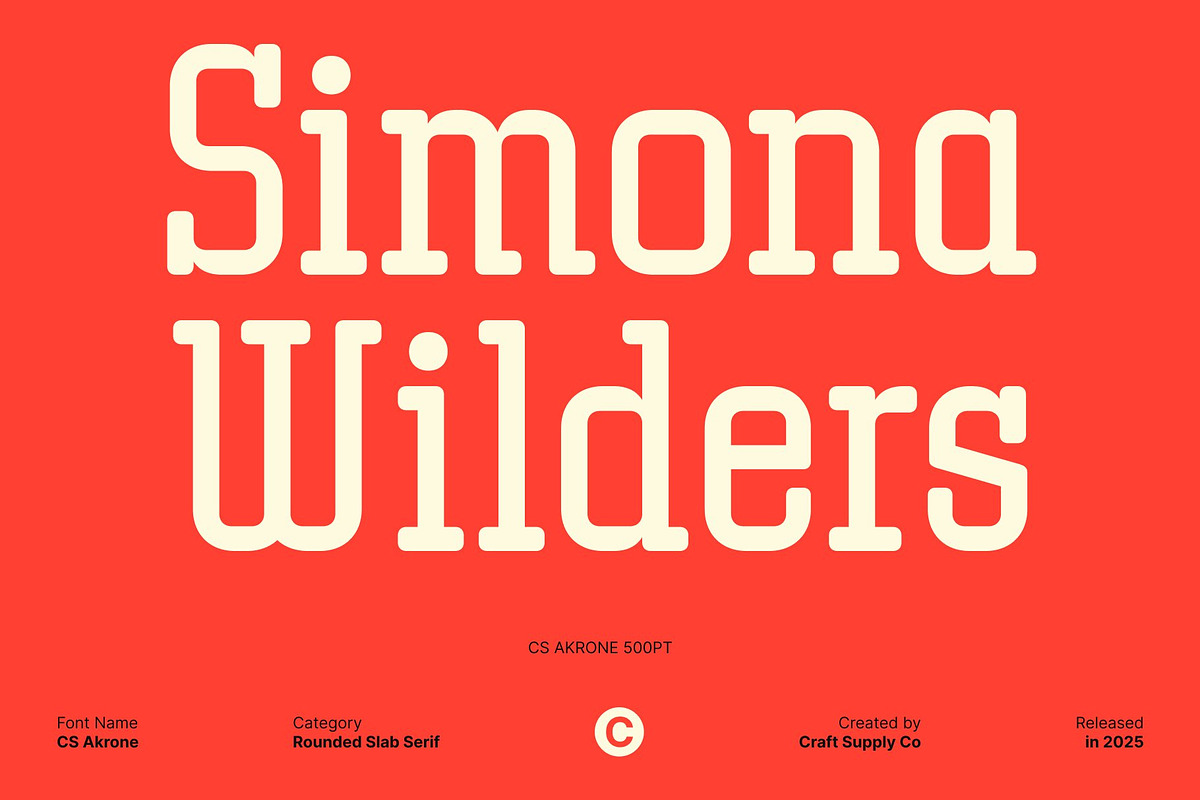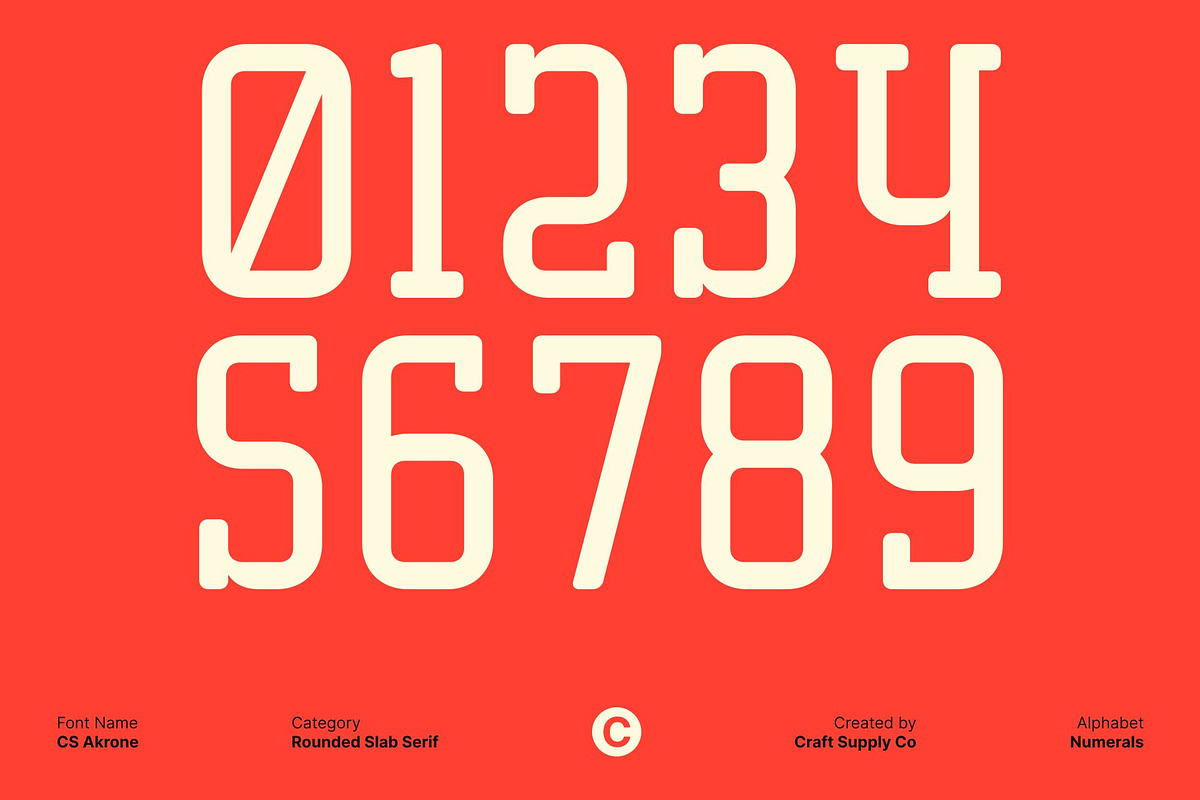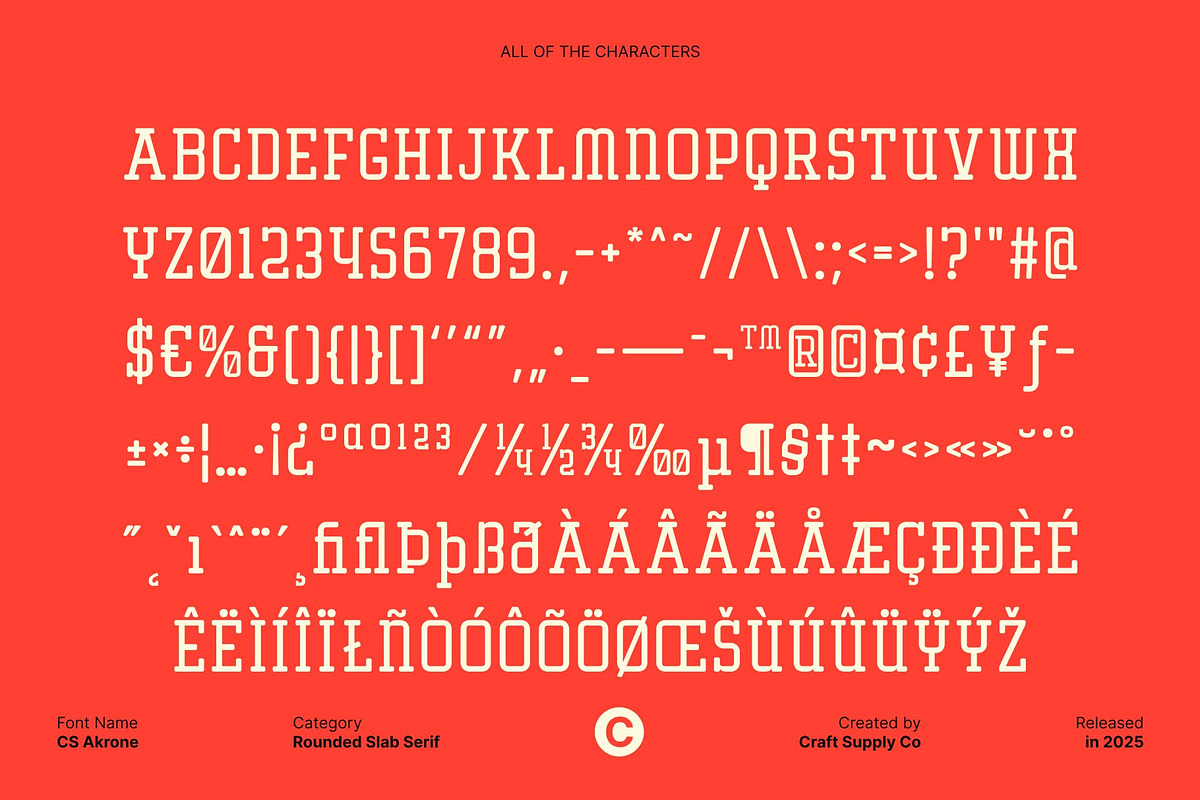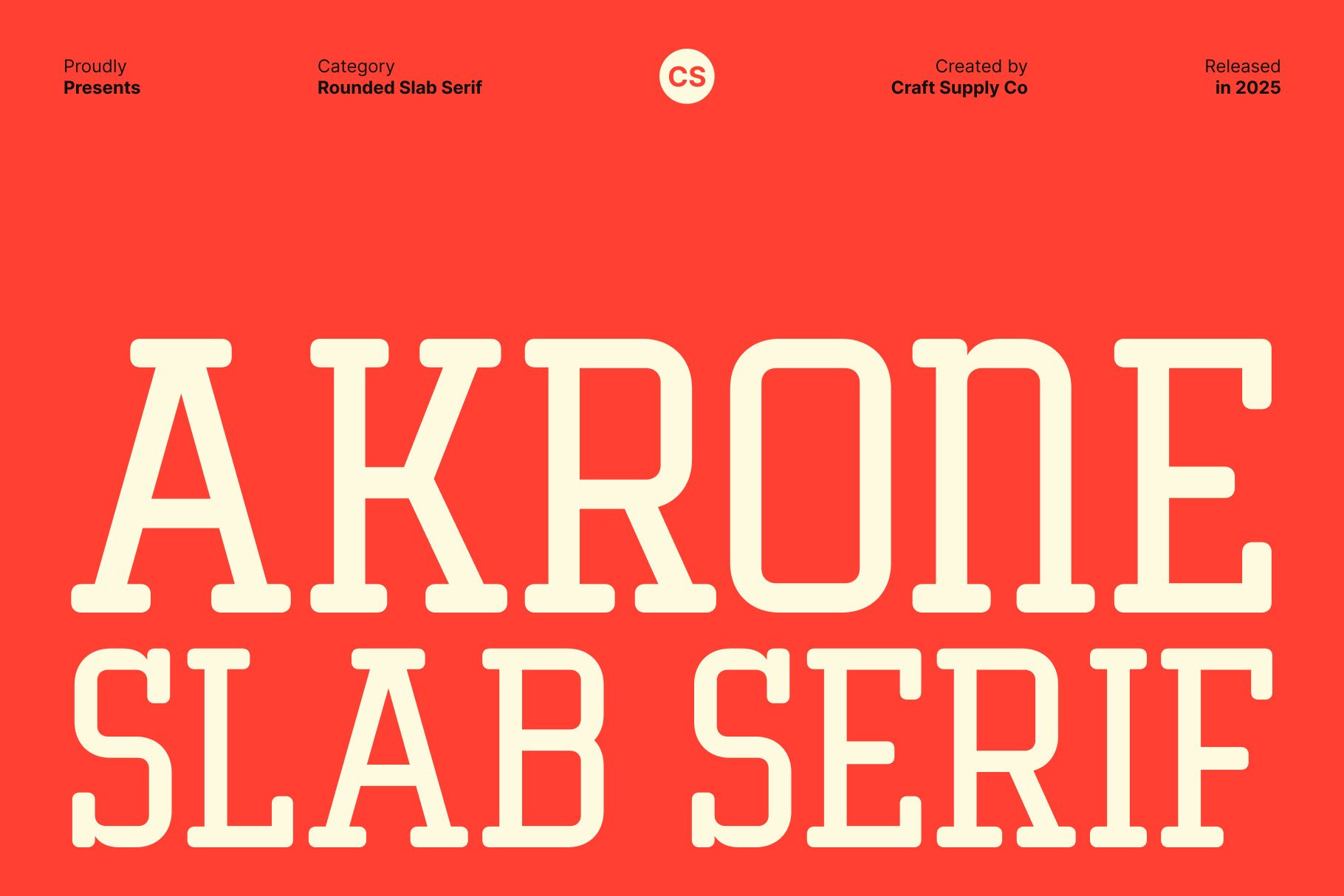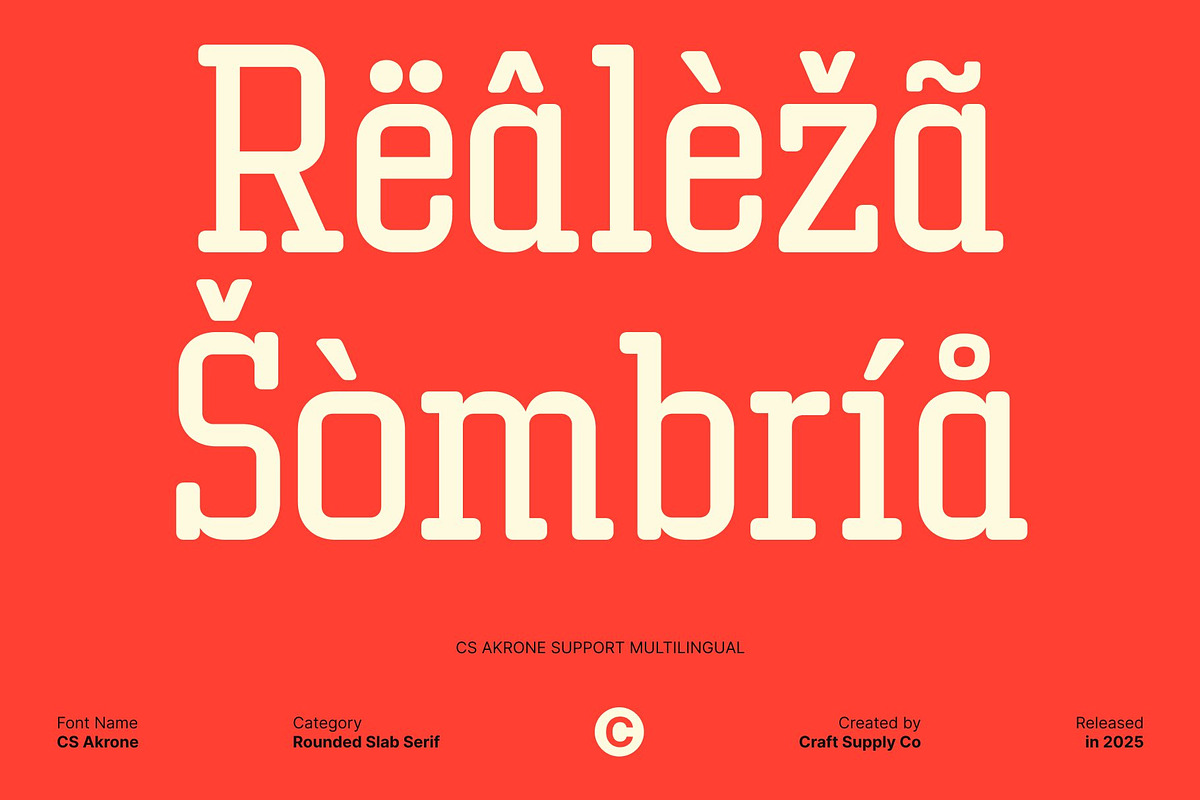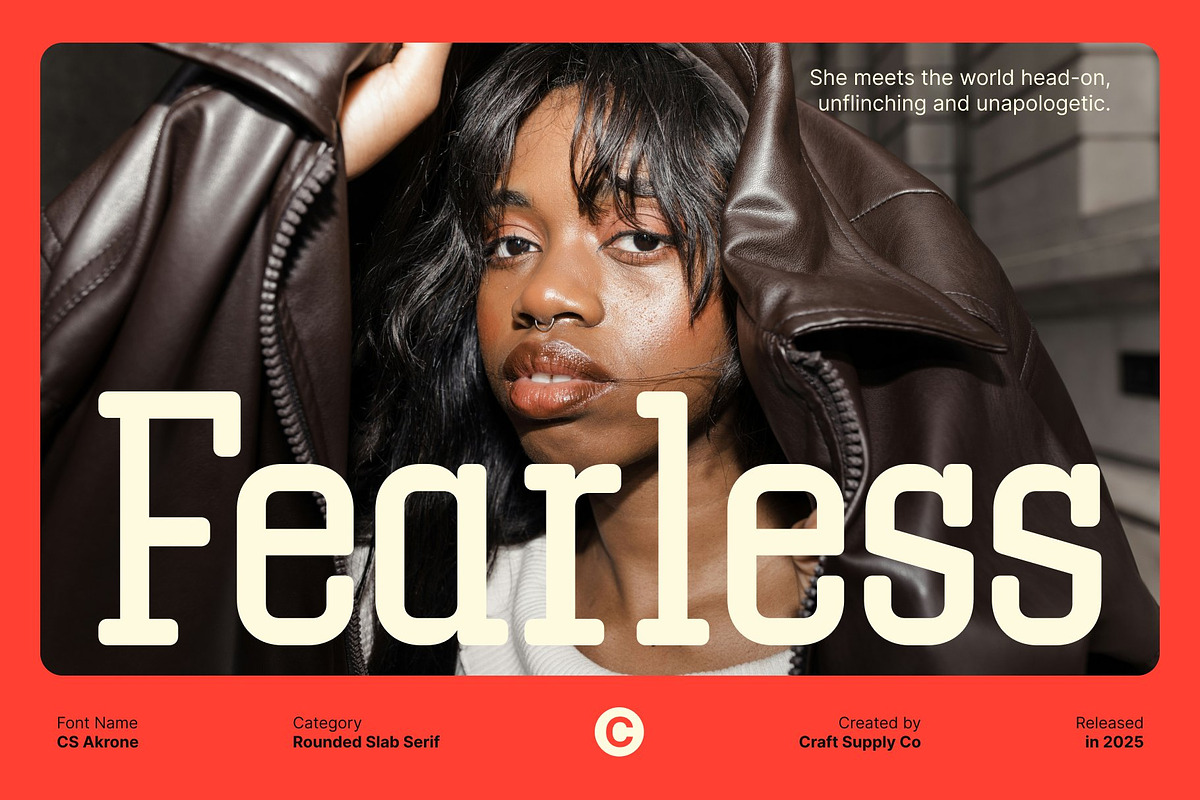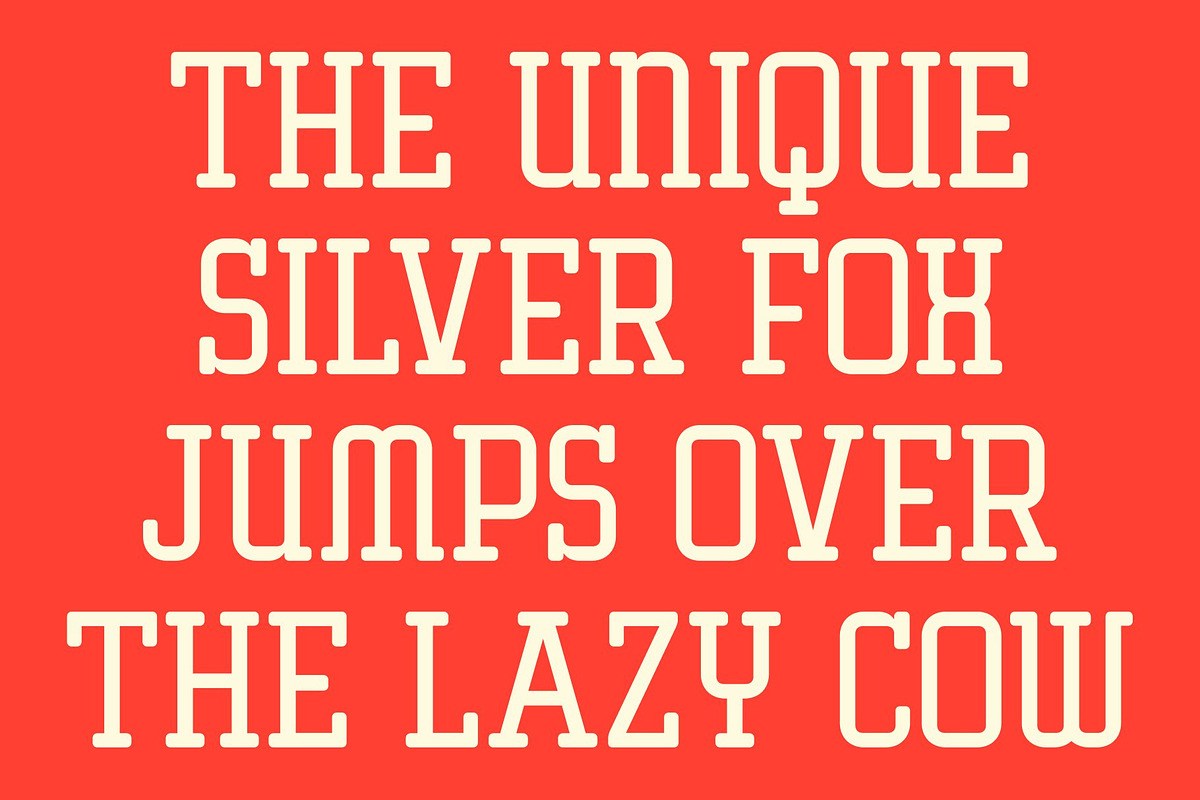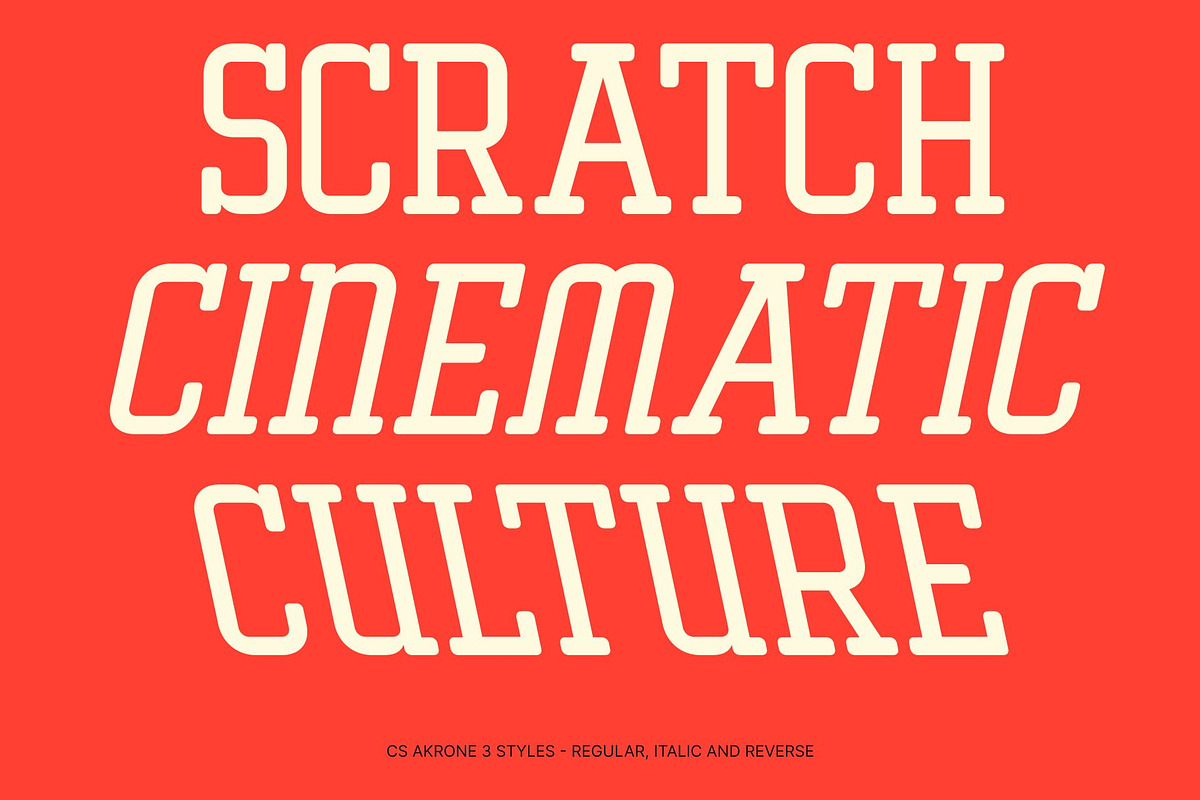
CS Akrone – Slab Serif Font
CS Akrone – Soft Slab Serif with Confident Presence
Balanced Softness and Strength This is a slab serif font designed to deliver a soft yet assertive impression. Its sturdy slab serifs provide a strong, grounded structure, while smooth curves and balanced proportions introduce a gentle, approachable feel. This combination creates a modern typeface that feels confident, clear, and visually engaging.
Optimized for Impact and Readability Built with clean letterforms, this font is highly effective when viewed from a distance. Its excellent legibility makes it an ideal choice for headlines, posters, advertisements, and billboards where clarity and impact are essential.
Modern and Sturdy Visual Character This font conveys a contemporary and solid visual identity, making it suitable for designs that require a modern, sturdy, and eye-catching impression. The font’s confident weight ensures your message stands out without overwhelming the design.
Ideal for Logos and Strong Visual Branding From logos to large-scale promotional materials, offers versatility and presence. Its clear structure and balanced personality help create memorable, bold typography that communicates strength and modern appeal across a wide range of design projects.